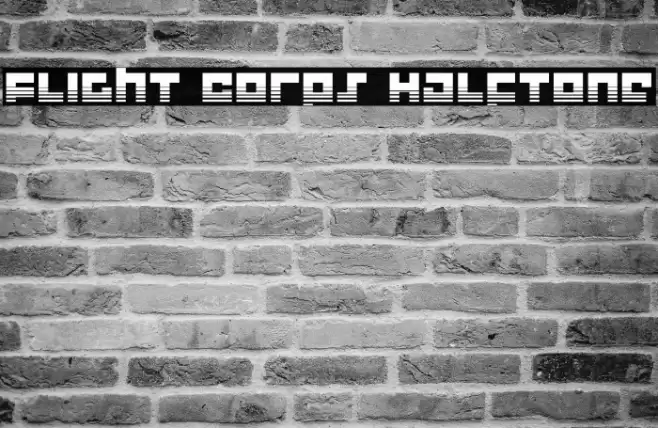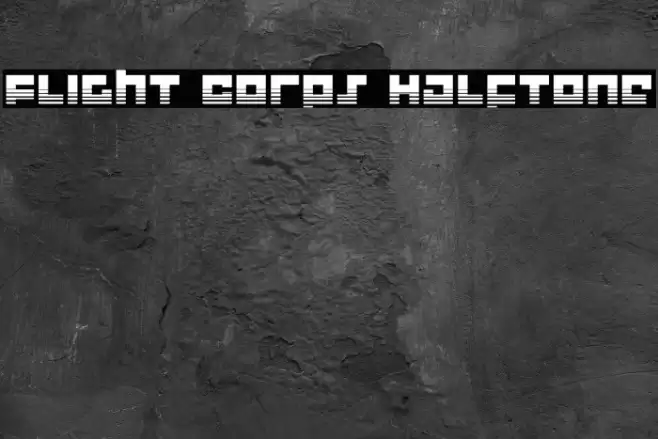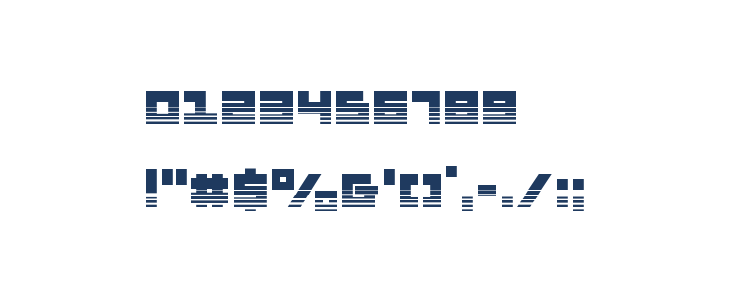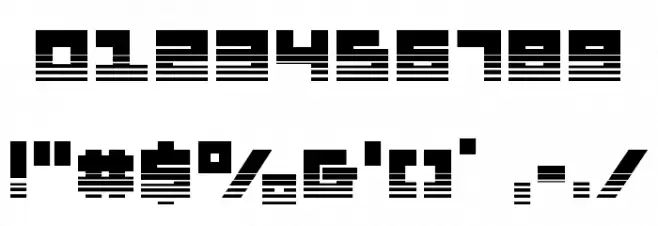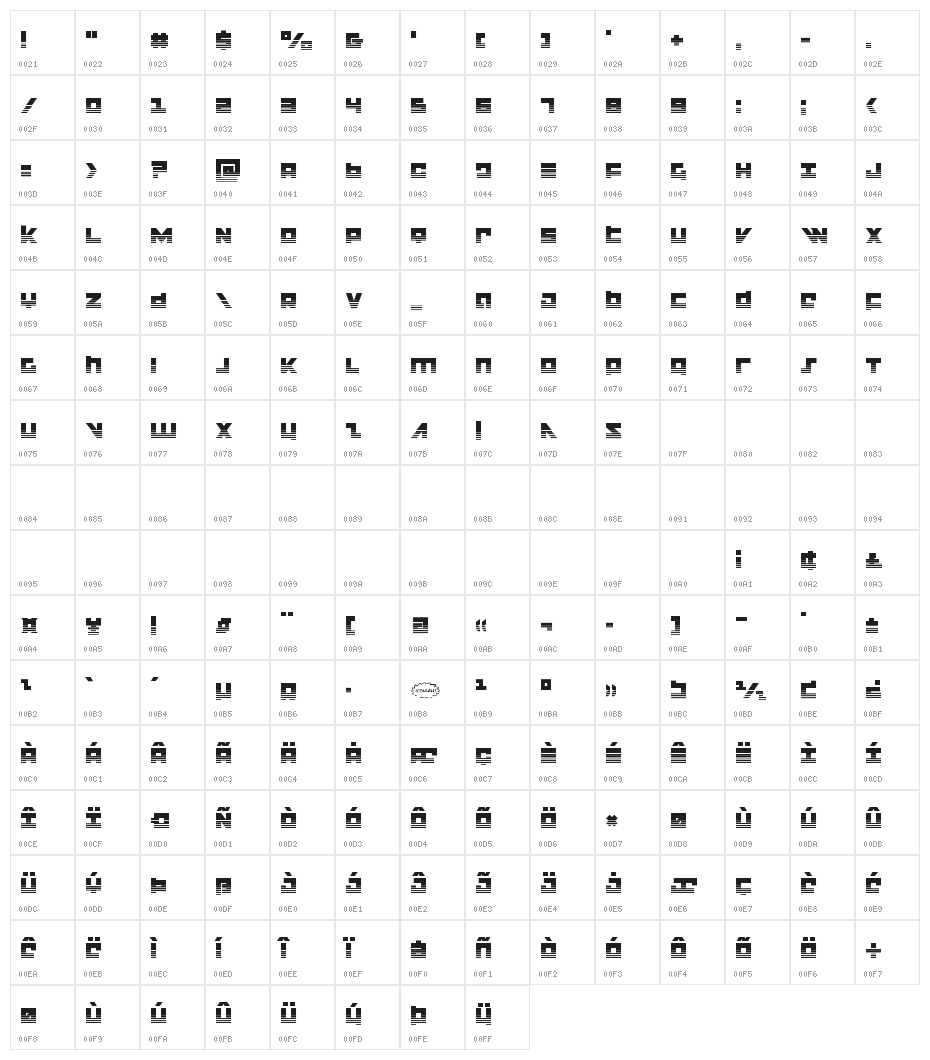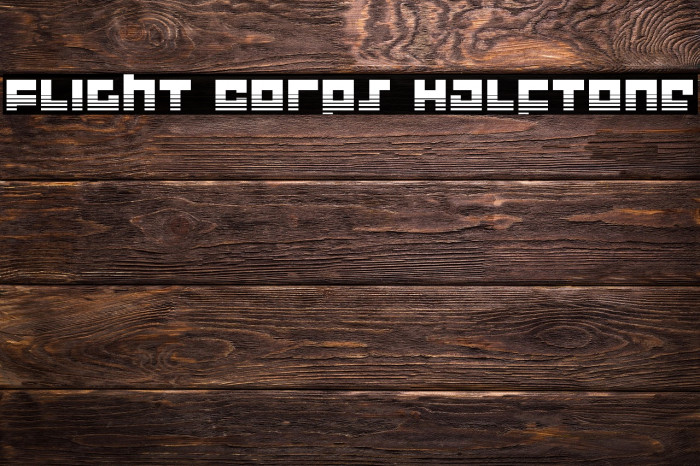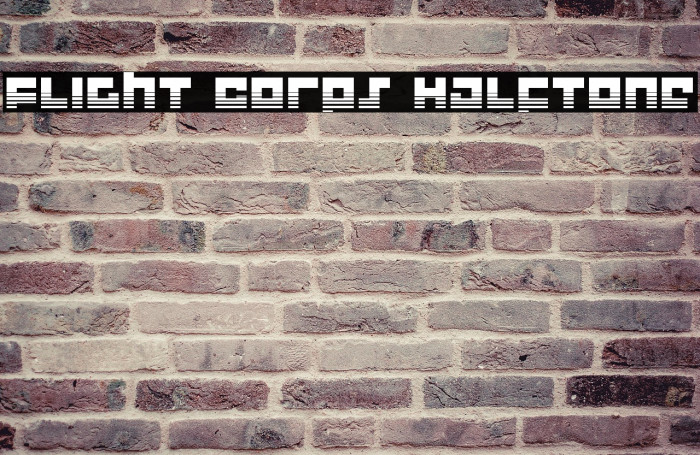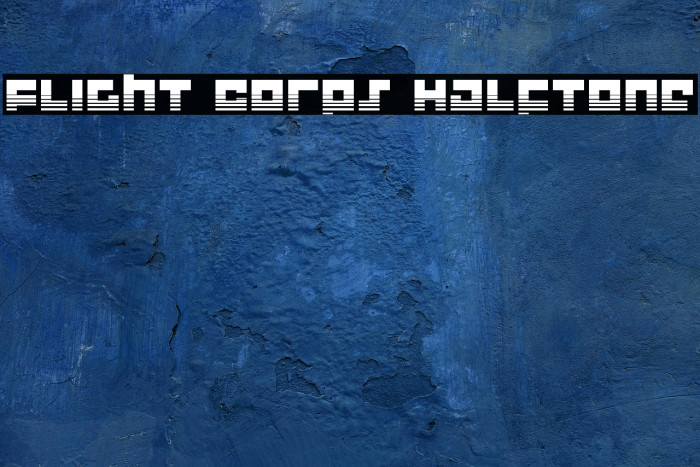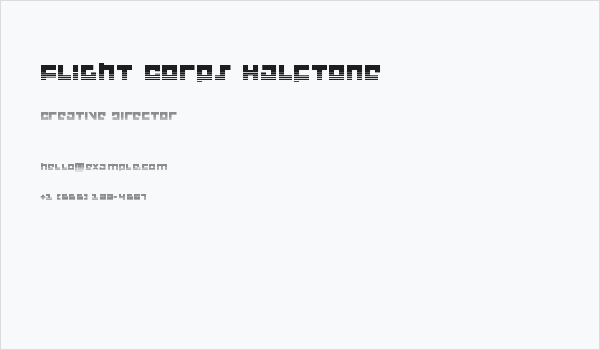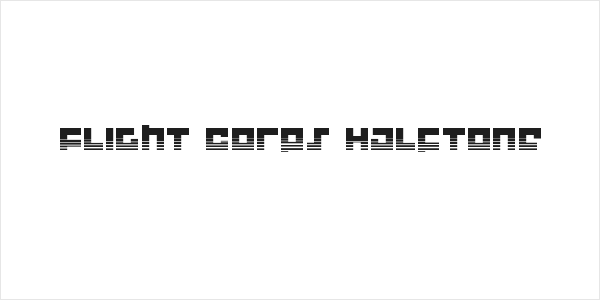
Flight Corps Halftone Font
Flight Corps Halftone Description
This font features a bold, futuristic design with a distinct halftone pattern incorporated into each character. The letters are constructed with horizontal lines that create a sense of movement and dynamism. The uppercase and lowercase letters maintain a consistent style, with sharp angles and geometric shapes that give the font a modern, tech-inspired look. The numbers and special characters follow the same design principles, ensuring a cohesive appearance across all elements. This font is ideal for projects that require a strong, impactful visual presence.
A bold, futuristic font with a halftone pattern and geometric design from Regular fonts.
- Proposed Projects: Ideal for sci-fi themed posters, tech-related branding, video game titles, and futuristic event invitations.
- Overall Style: Futuristic